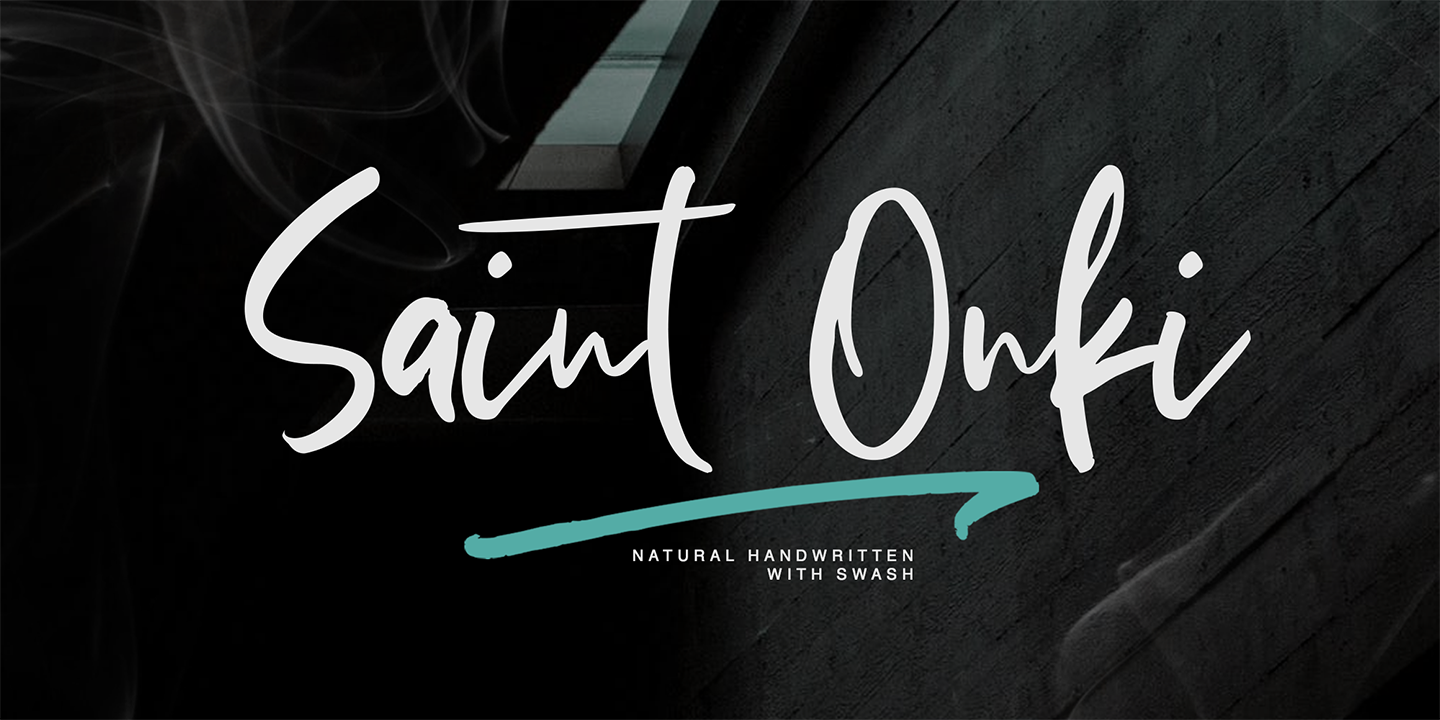
Saint Onki Font Free Download is a bold, stylish display typeface that blends modern flair with artistic character. Featuring unique curves, dynamic letterforms, and a strong personality, Saint Onki Font is perfect for logos, posters, branding, packaging, apparel, and social media graphics. Its edgy and eye-catching design makes it ideal for projects that aim to stand out with confidence and creativity.
Whether you’re creating bold branding, artistic promotional materials, or modern merchandise, Saint Onki Font delivers a memorable aesthetic that grabs attention across both print and digital platforms. Its unique style ensures your message is not only seen but leaves a lasting impression.